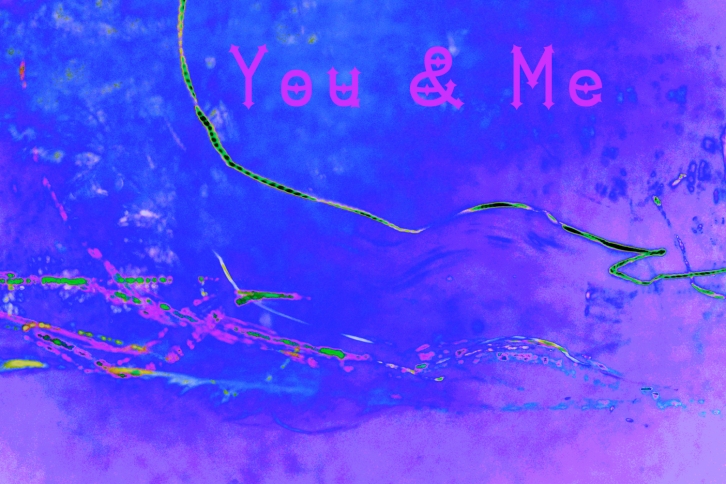
Dymond Speers Solid Type is a gorgeous font that was realeased on January 13, 2017. The font can be used in many style contexts and design environments. Perfect for invitations, magazines, websites, logos, and more! It was designed by Dymond Speers and the file size is 7.64 MB. Thanks for checking out this font!